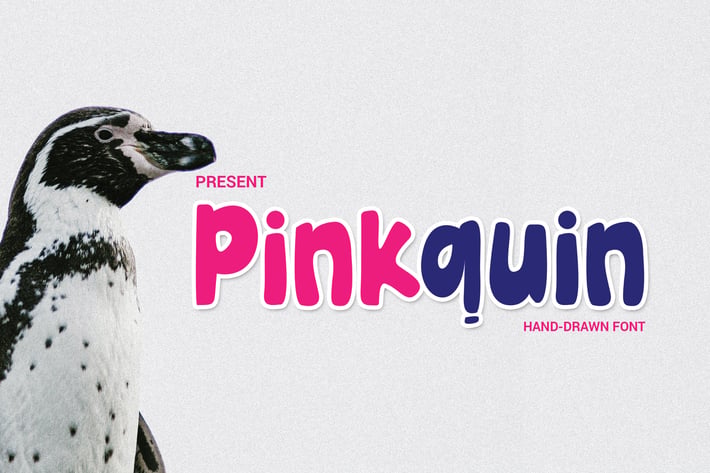
Pinkquin Hand-drawn Font
Pinkquin
Pinkquin Font is based on original hand-drawn. This font is perfect for making your set of apparel,
T-shirt,Hoodie, quotes, product packaging, brand, blog posts,
greeting cards, labels, posters, wall art, etc